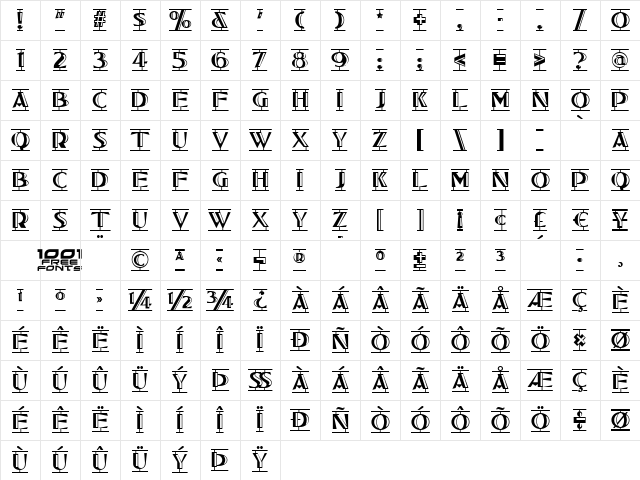
Complete Tucson Two Step NF Regular glyph index. Displaying only characters natively supported by Tucson Two Step NF Regular font.
Tucson Two Step NF is a composed and adaptable typeface that performs quietly and consistently across a wide range of design contexts.